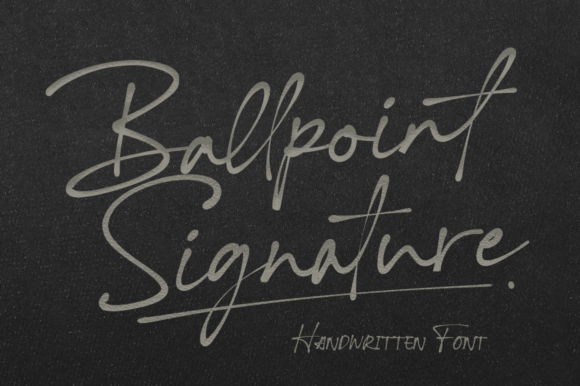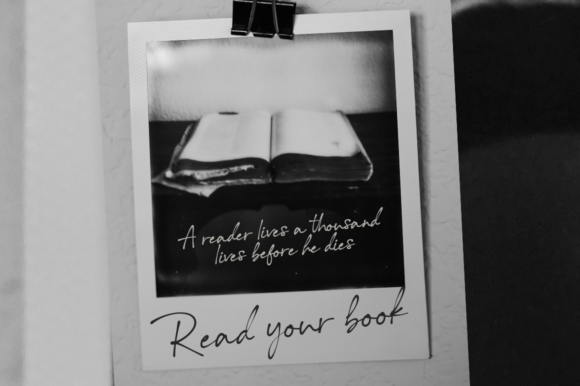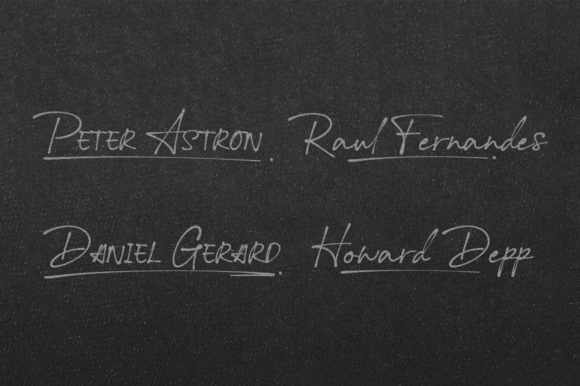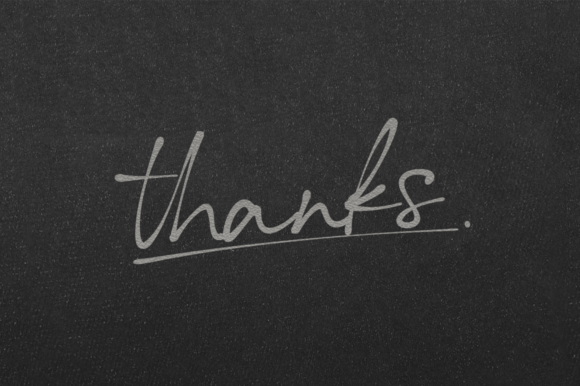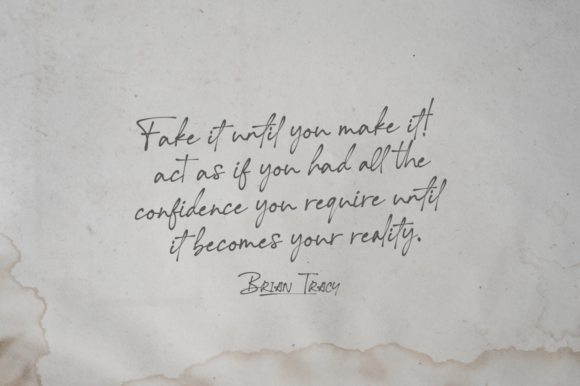
About Ballpoint Signature Font
Ballpoint Signature is an exquisite handwritten font, masterfully designed to become a true favorite. This font is PUA encoded which means you can access all of the glyphs and swashes with ease! It features a varying baseline, smooth lines, gorgeous glyphs and stunning alternates. Fall in love with its incredibly versatile style and use it to create spectacular designs!